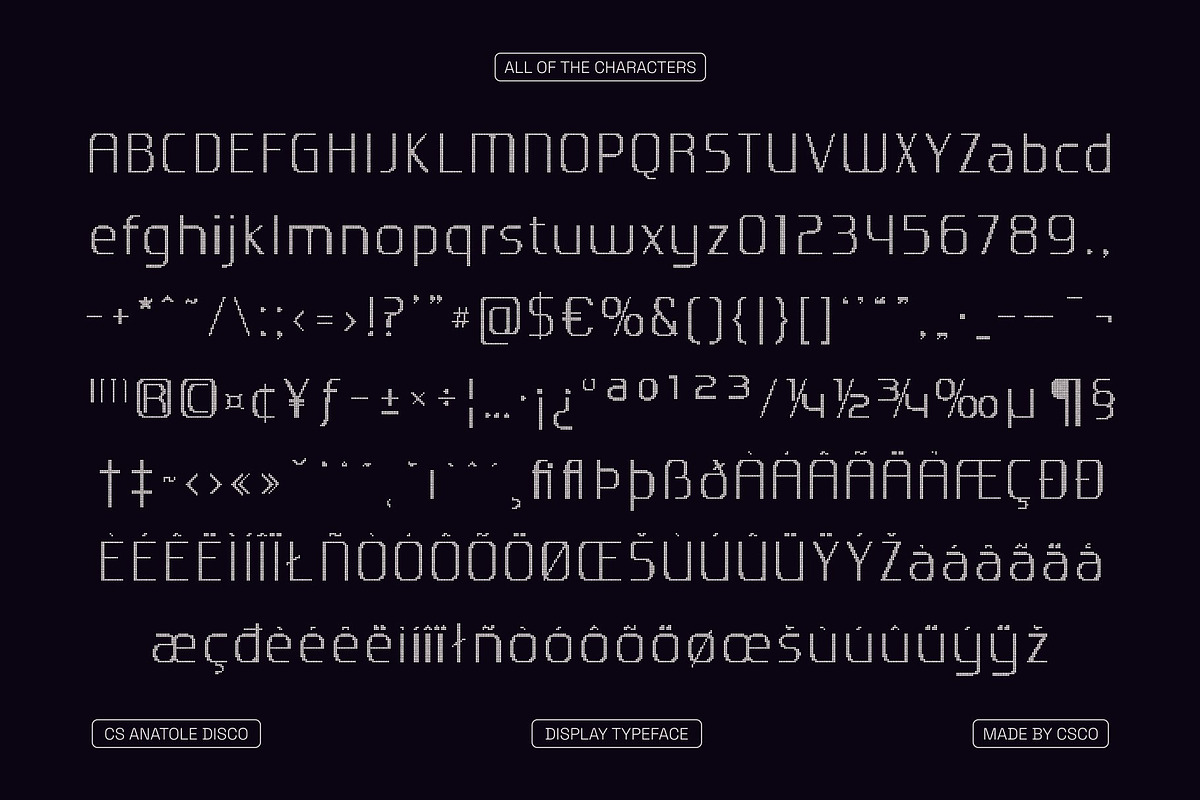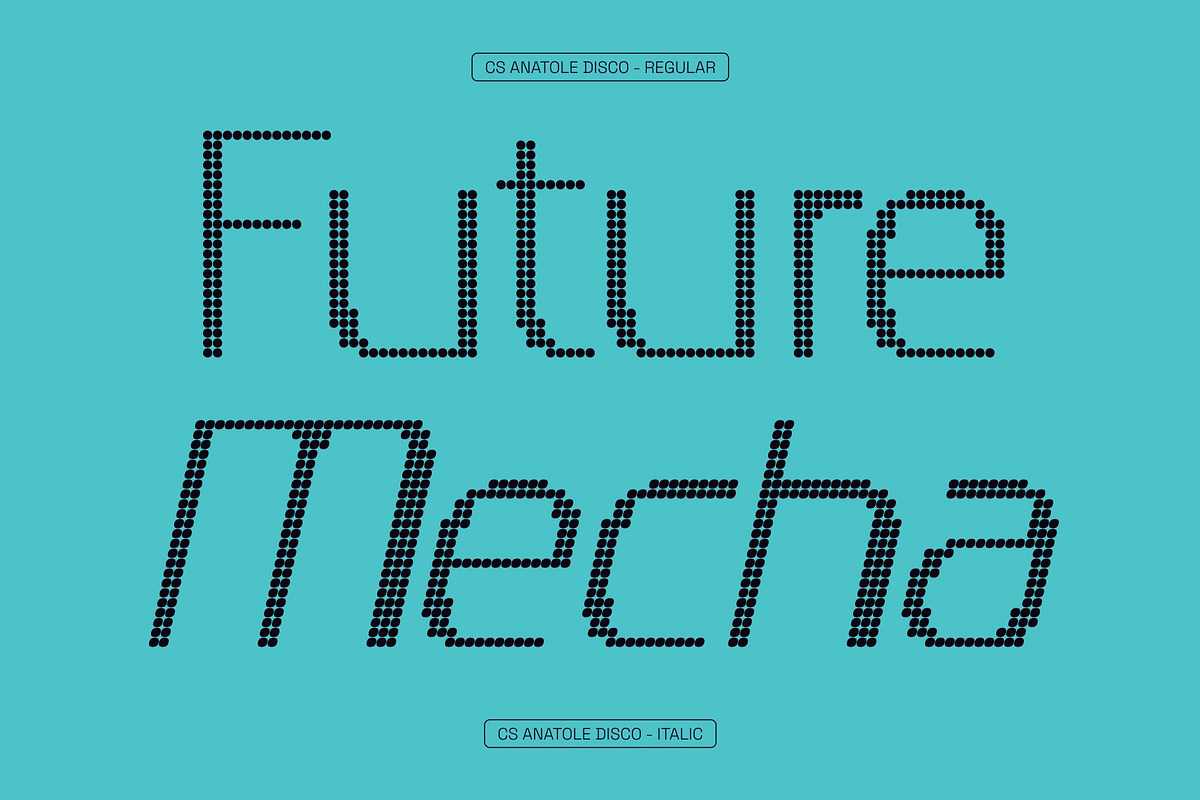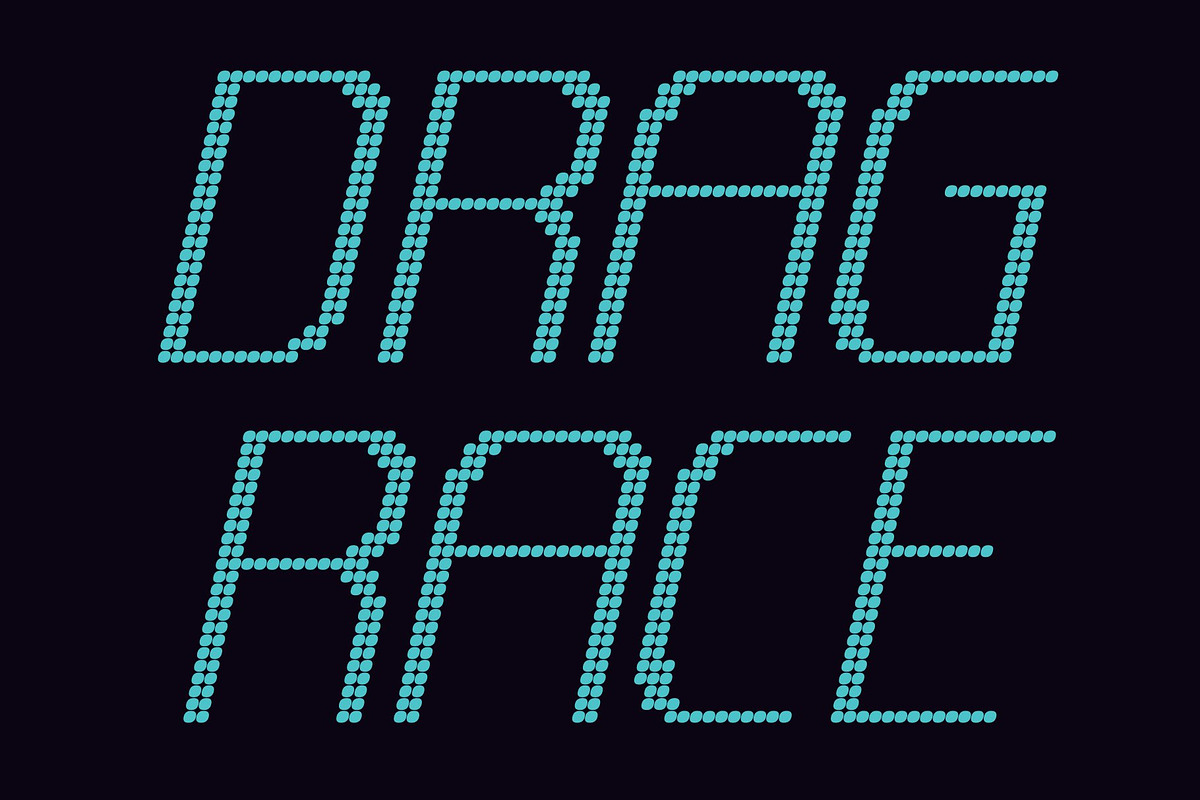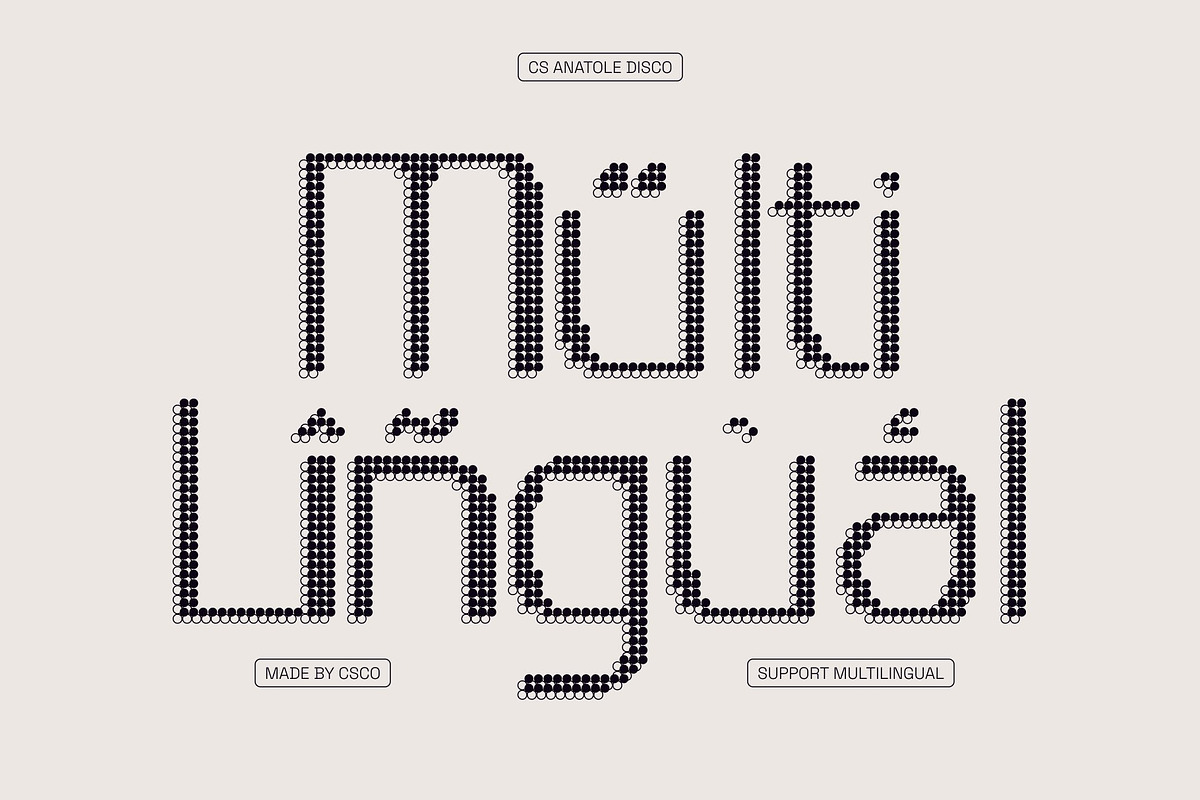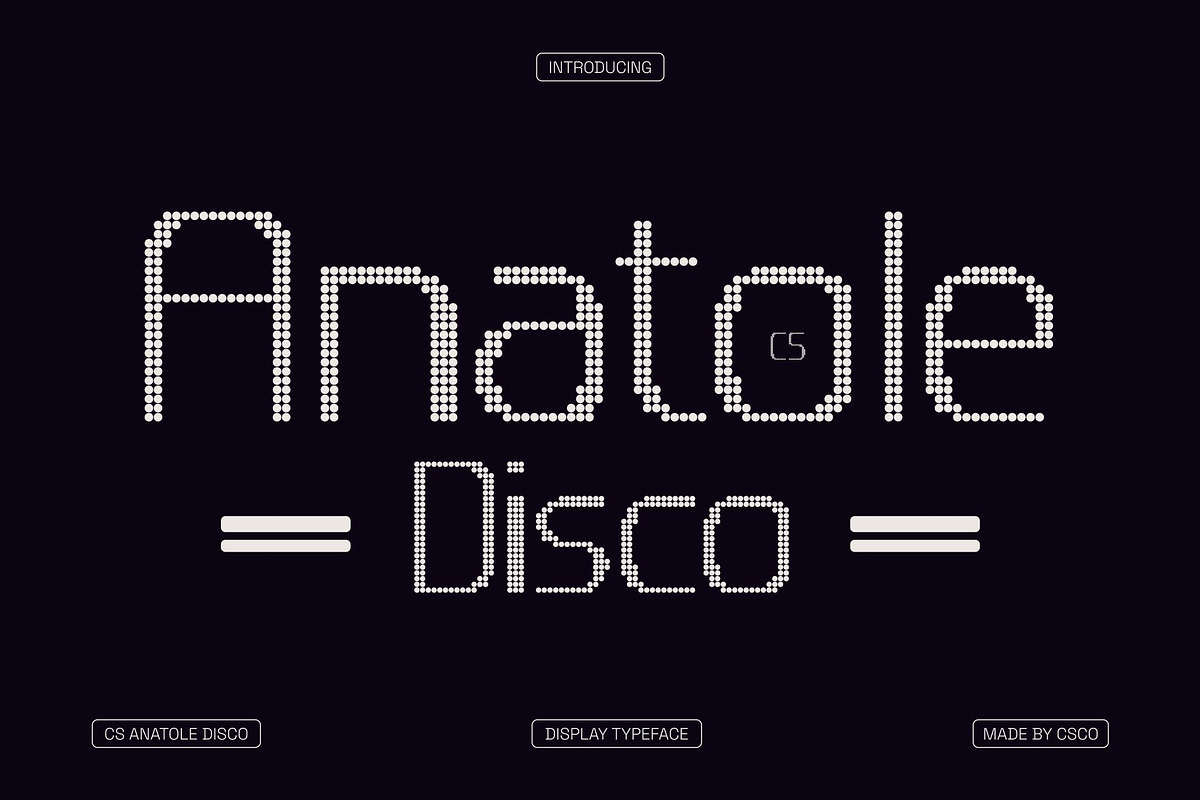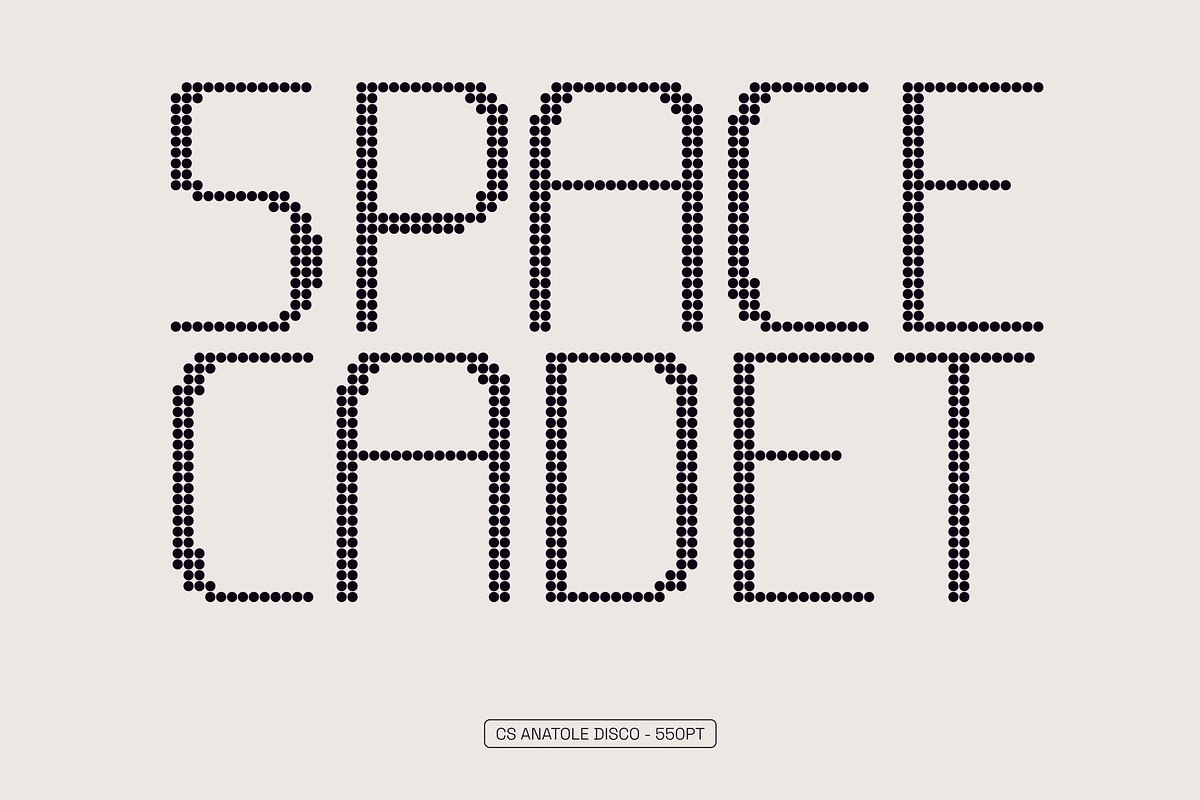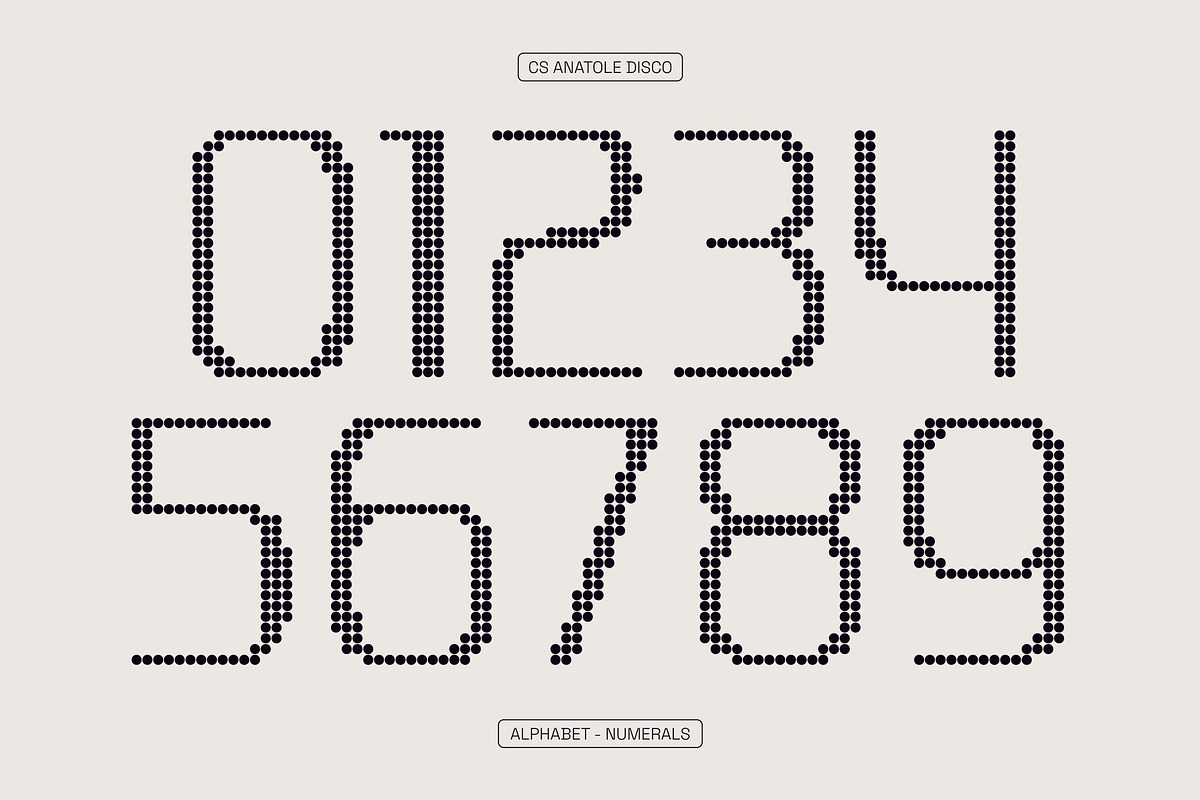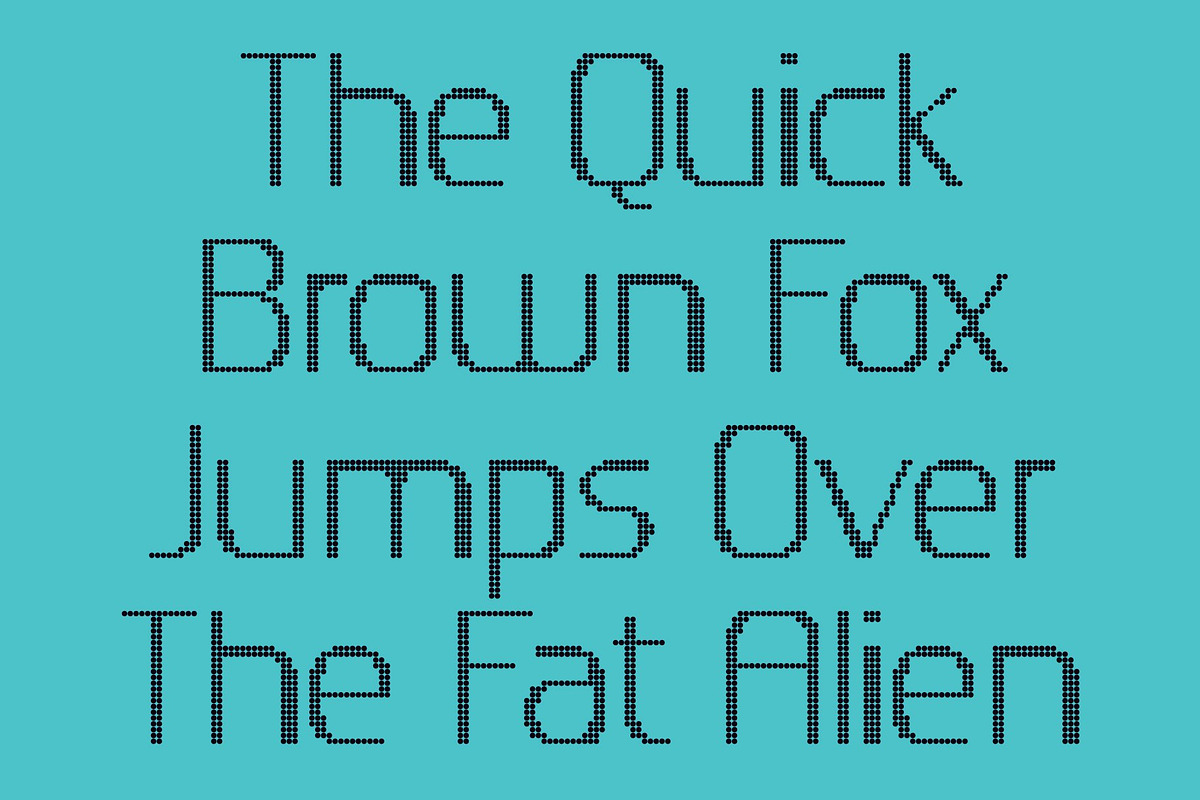
CS Anatole Disco
CS Anatole Disco – Where Futurism Meets Modern Elegance with Disco Energy Futuristic Display Font with Electric Modern Style This is a modern futuristic display font designed to command attention through sleek geometry, clean sans serif construction, and contemporary energy. Its precise, forward-looking letterforms reflect cutting-edge technology and modern innovation, now enhanced with a subtle disco-inspired vibrancy that adds life and motion.
Striking Shapes with Refined, Rhythmic Balance Each character is crafted with sharp precision and balanced proportions, blending futuristic minimalism with expressive elegance. Streamlined shapes and confident spacing create a high-tech presence, while a controlled disco rhythm introduces visual flow maintaining clarity, legibility, and dynamic appeal across digital and print use.
High-Impact Typography for Modern Branding Perfect for logos, posters, headlines, and statement visuals, delivers strong visual impact and confident sophistication. Its futuristic aesthetic strengthens brand identity and creates a polished, forward-facing impression with an energetic edge.
Versatile for Progressive and Contemporary Design From tech branding and digital interfaces to editorials and experimental creative projects, this font adapts effortlessly across modern design needs. It combines innovation, elegance, and disco-inspired energy ensuring your designs feel progressive, stylish, and always ahead of the curve.